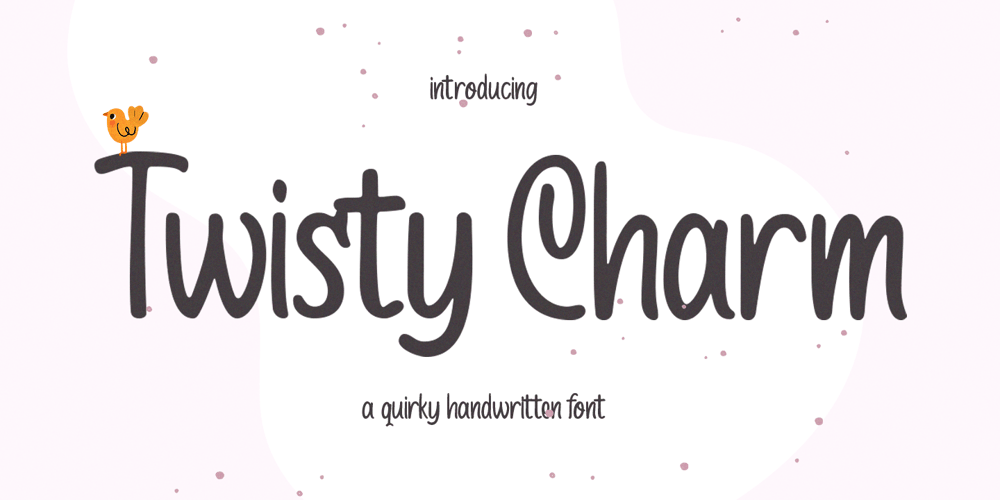
Twisty Charm
Twisty Charm font
Twisty Charm Font Family was designed by Hendry Juanda and published by Letterhend. Twisty Charm contains 1 styles and family package options. Introducing, Twisty Charm – a cute hand writing with casual looks. This type of font perfectly made to be applied especially in logo, and the other various formal forms such as invitations, labels, logos, magazines, books, greeting / wedding cards, packaging, fashion, make up, stationery, novels, labels or any type of advertising purpose.Features : Uppercase & lowercase Numbers and punctuation Alternates & Ligatures Multilingual Support PUA encoded